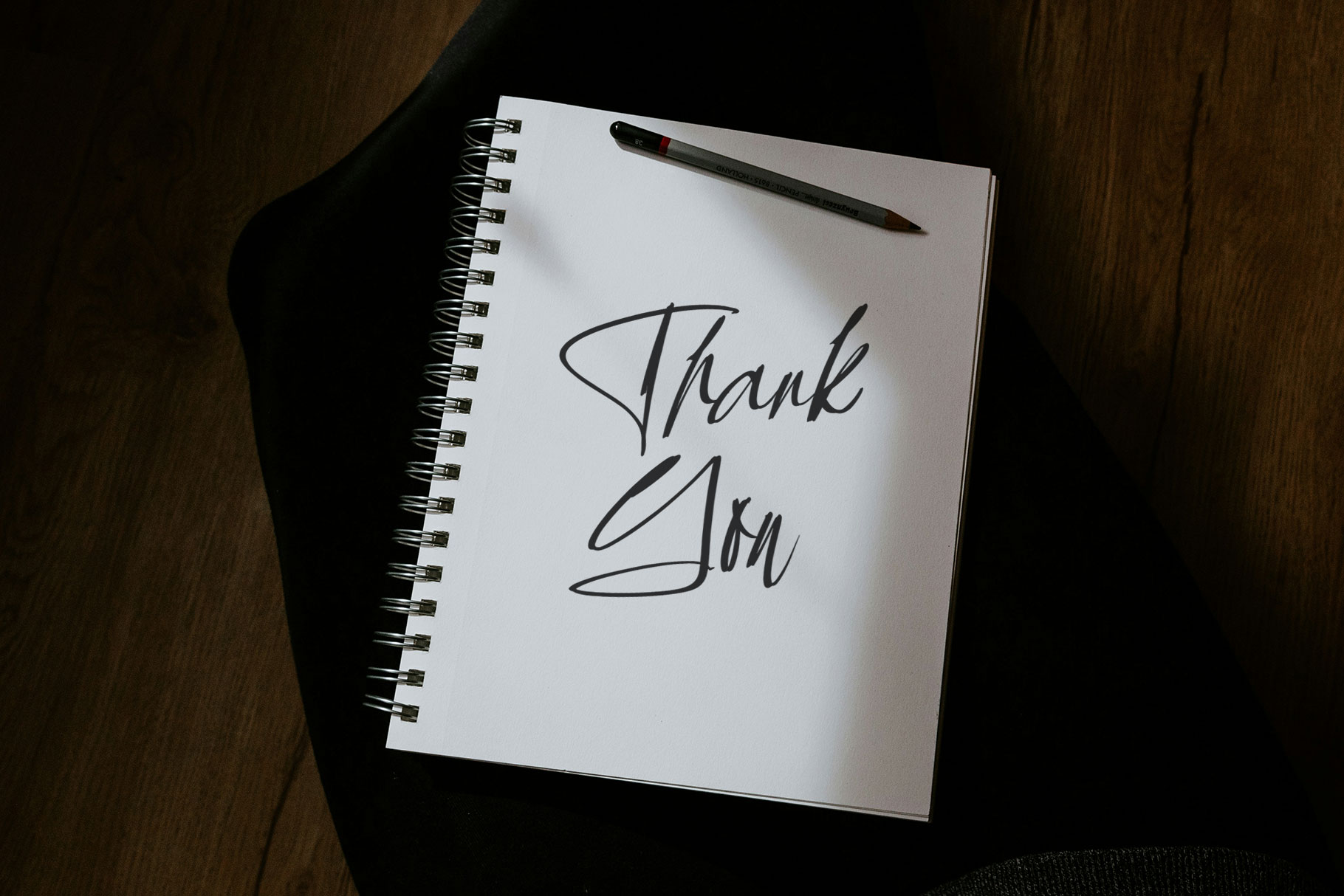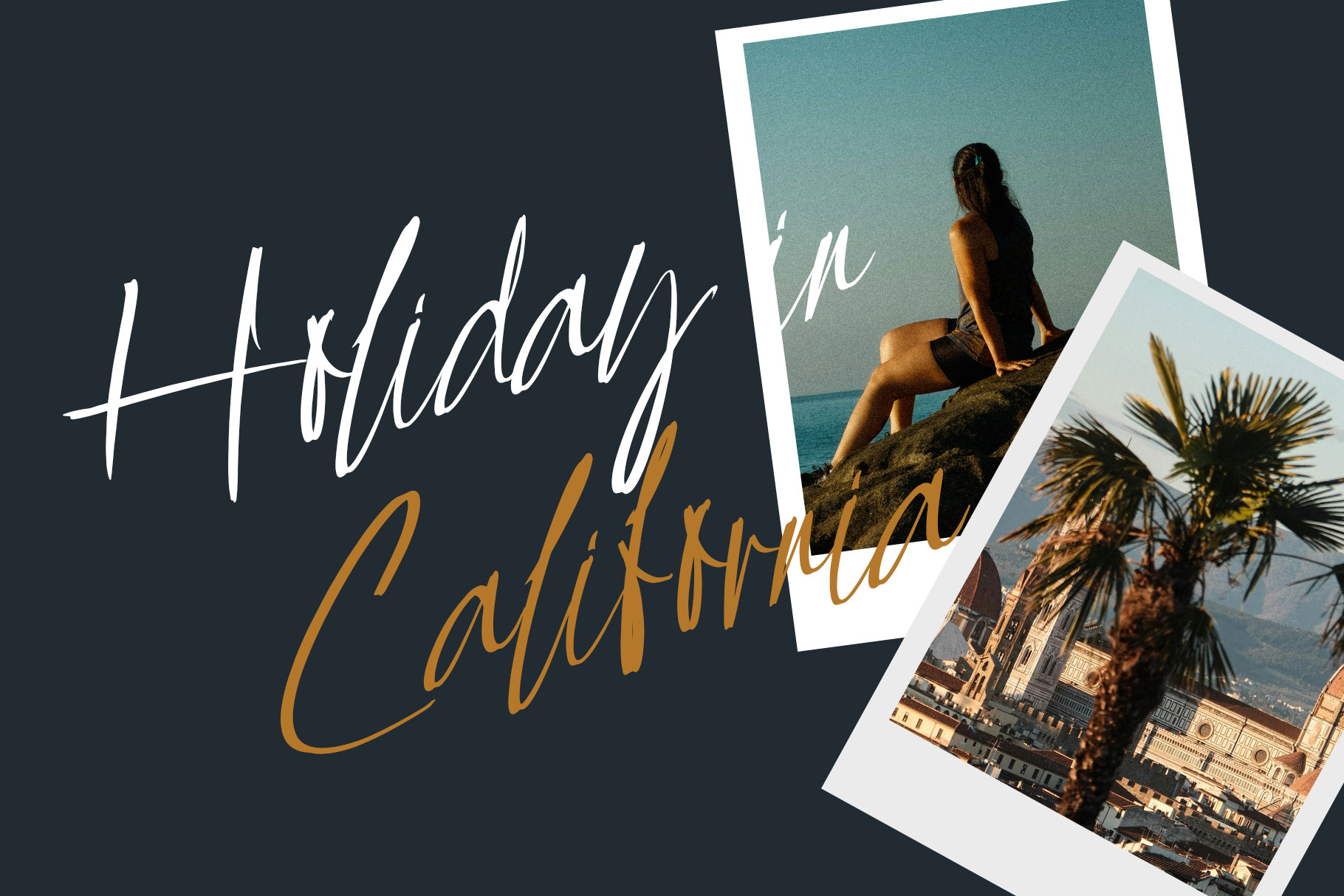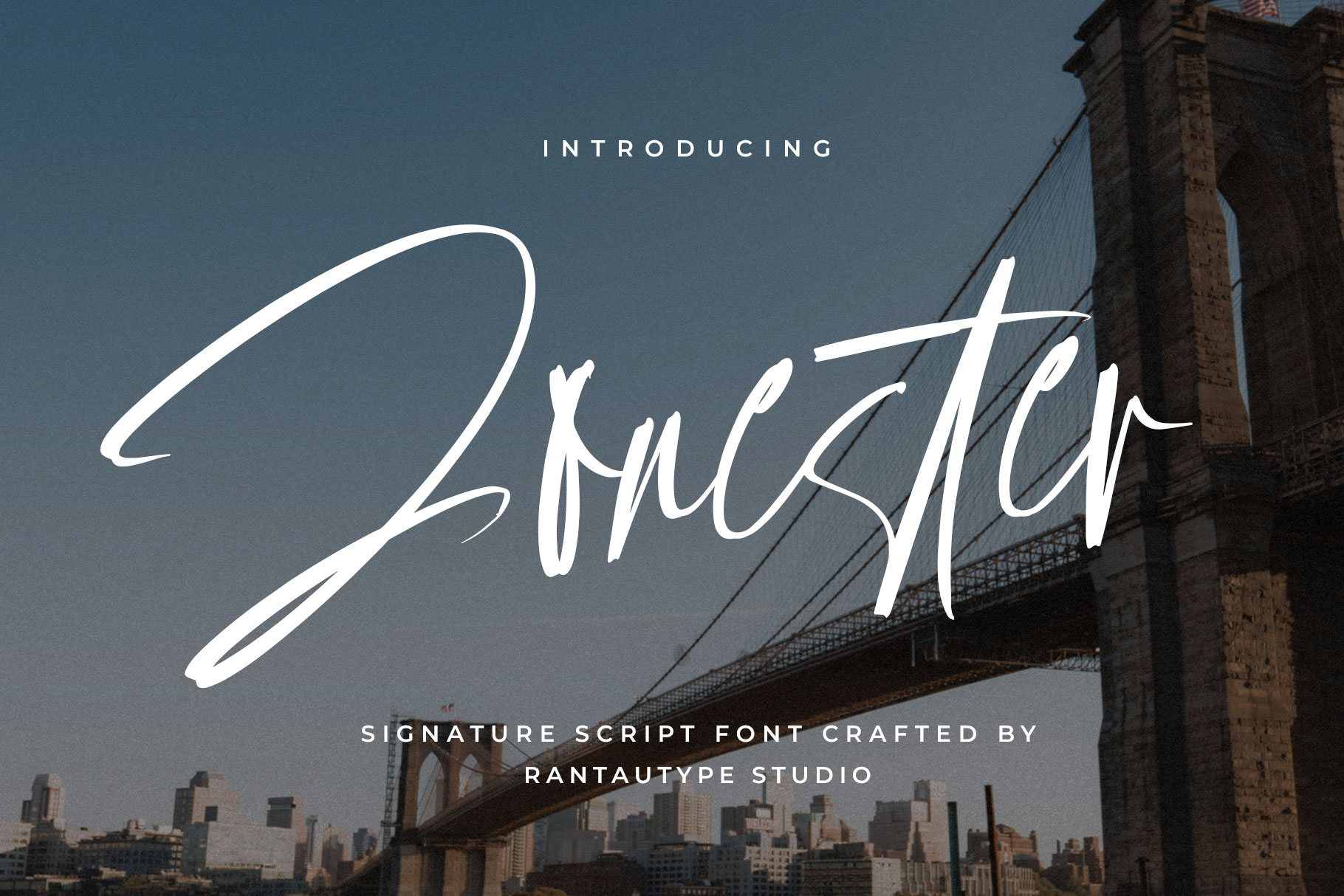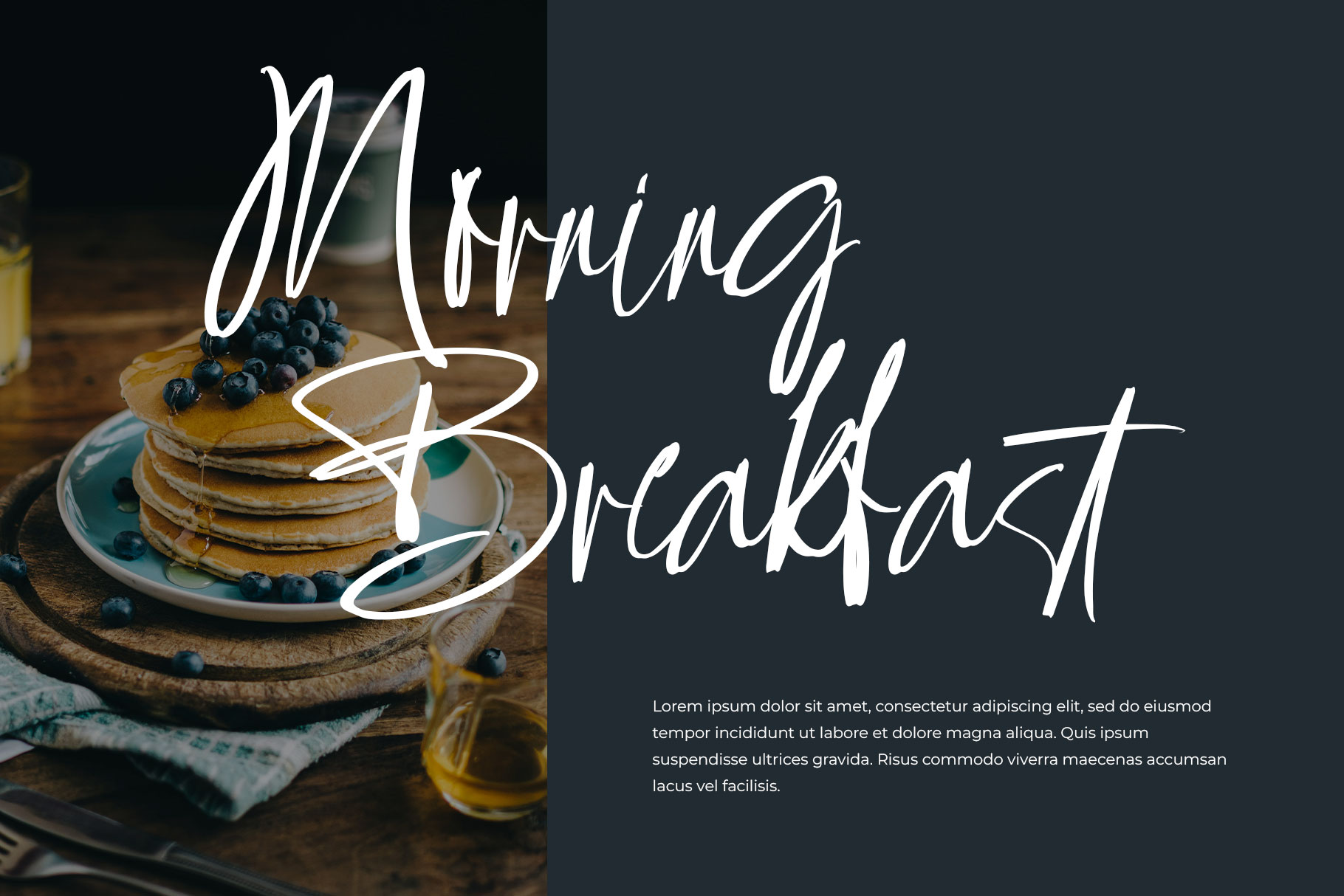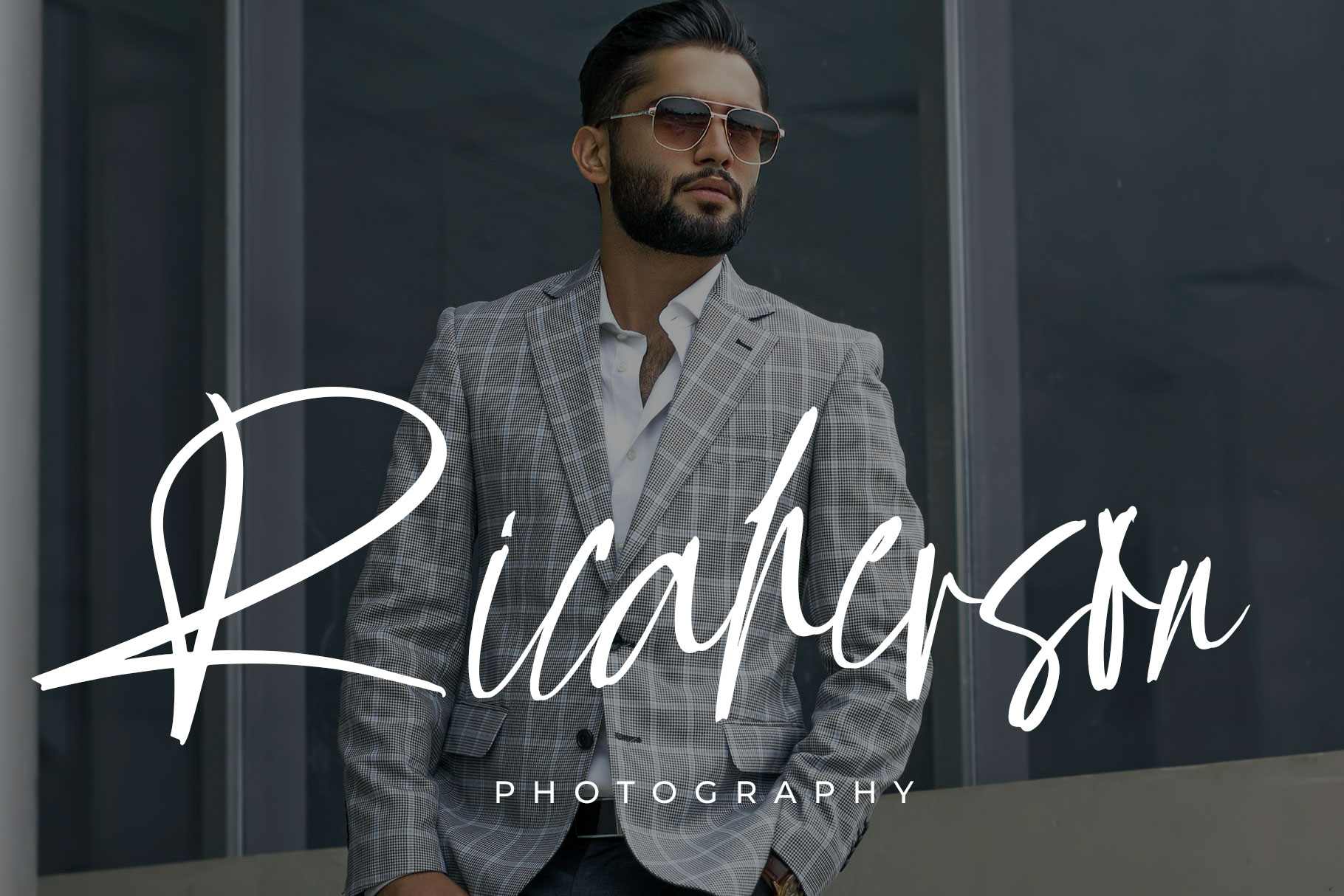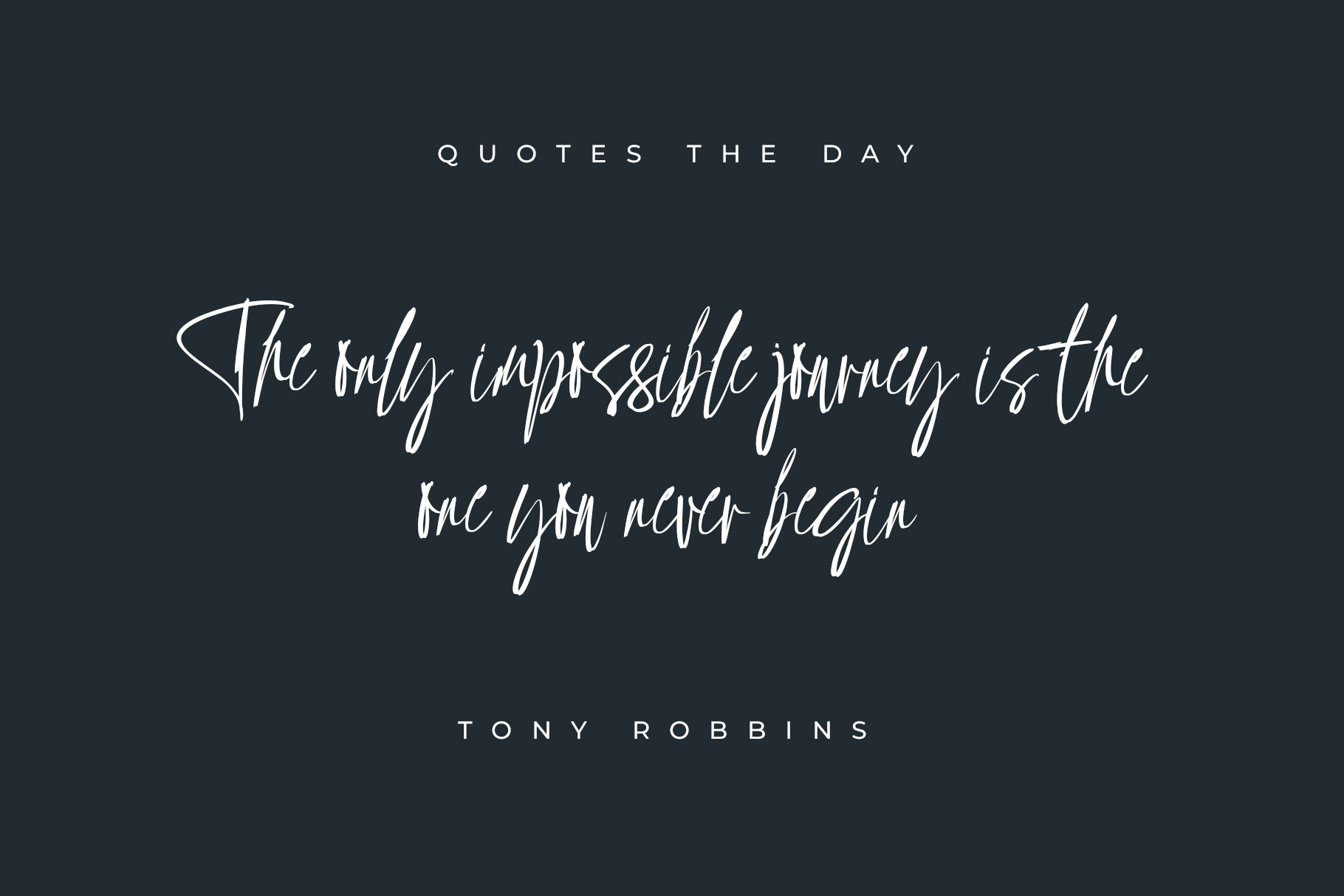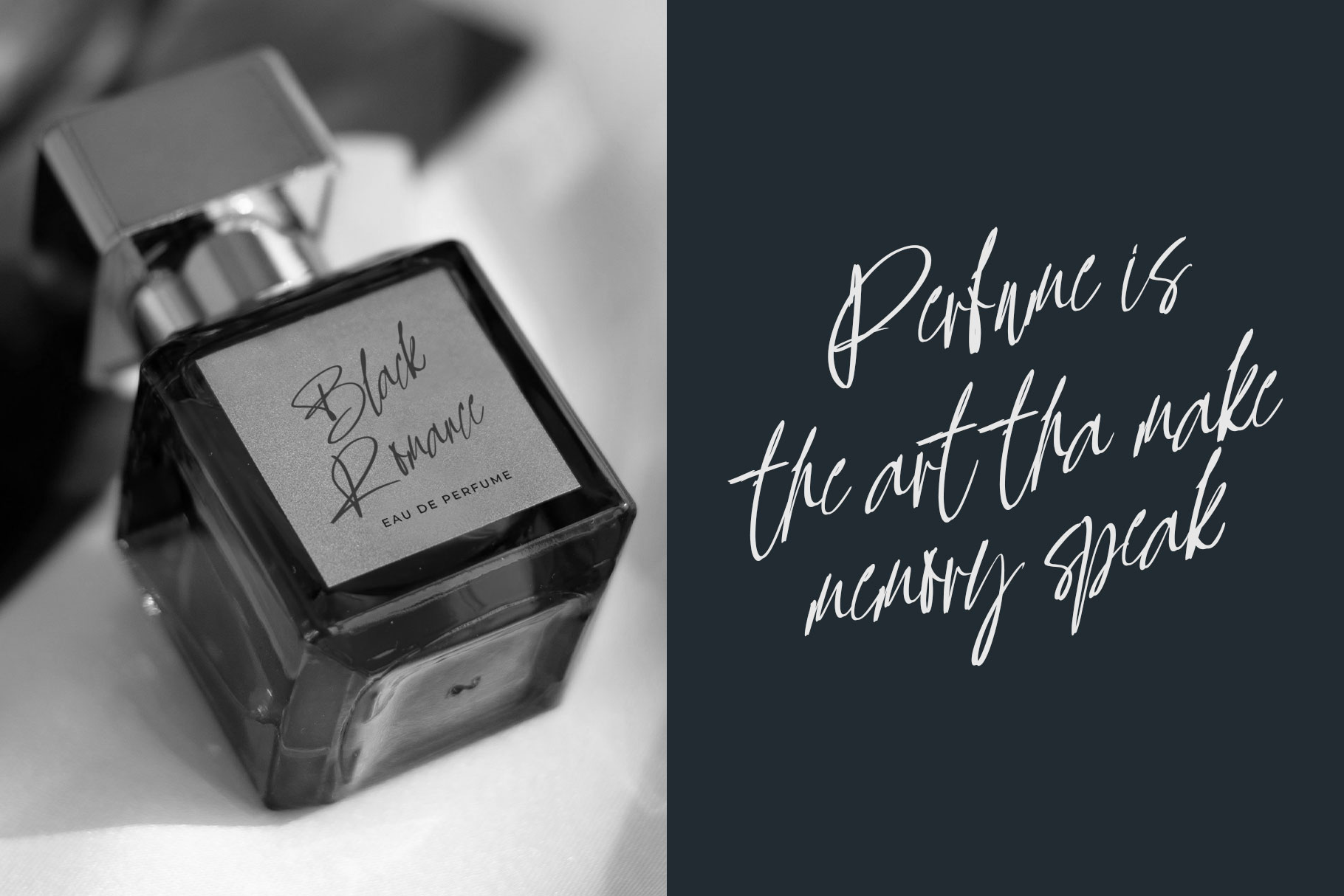
Jonester Signature Script Font
Jonester is signature font with authentic style made by rantautype studi. Jonester is a perfectly choice for any creative endeavor, creating, modern, lifestyle design such as logotype, title, cover, branding, invitations, wedding designs, display and magazine, social media posts, advertisements, printed quotes, product packaging, corporate brand, product designs, labels, photography, watermarks, special events and any other project with modern touch.